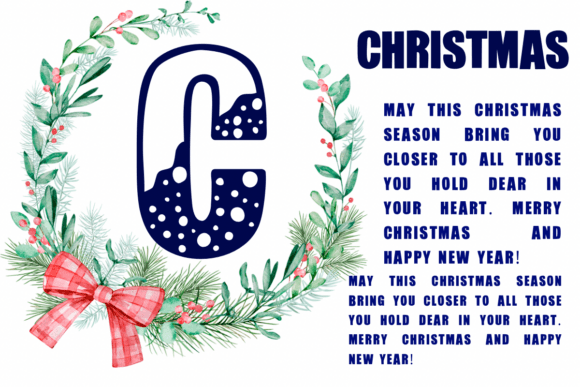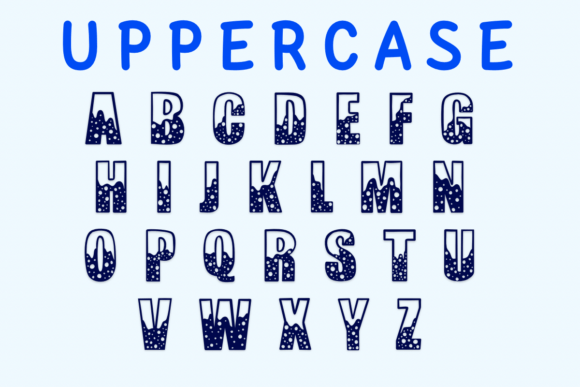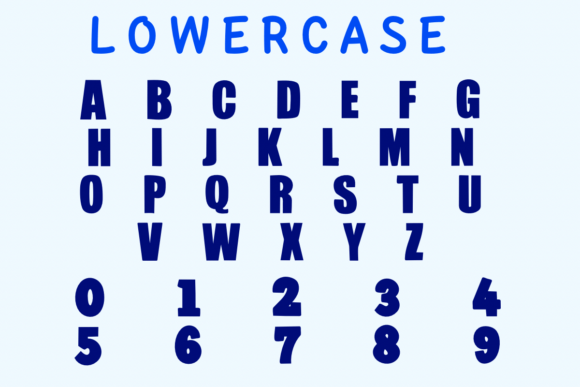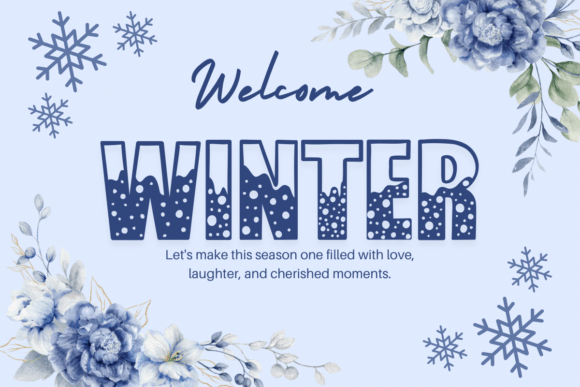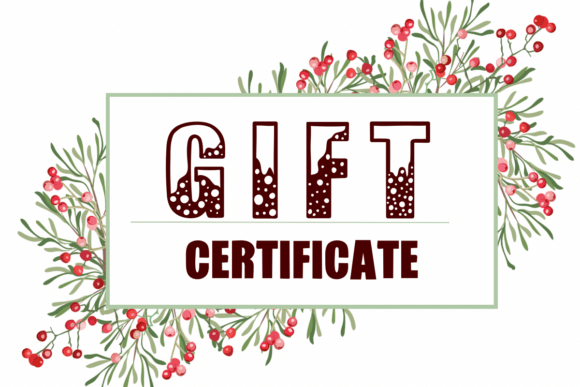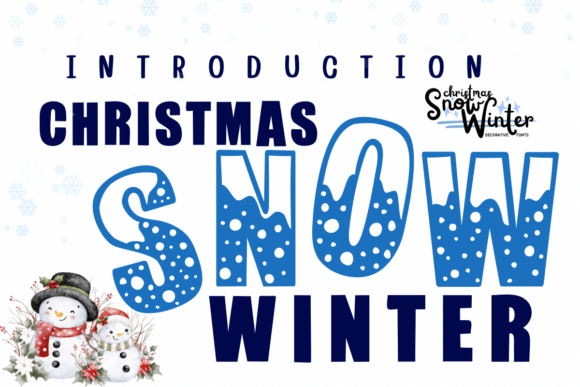
❄️ Christmas Snow Winter Font: Add a Festive Touch to Your Designs ❄️
As the holiday season approaches, designers and crafters are on the lookout for the perfect elements to add a touch of festive magic to their projects. If you’re searching for a font that embodies the spirit of Christmas and winter, look no further than the ❄️ Christmas Snow Winter Font. This decorative font is specifically designed to capture the essence of the holiday season, making it an ideal choice for a wide range of creative projects.
What is Christmas Snow Winter Font?
The ❄️ Christmas Snow Winter Font is a unique and festive decorative font that brings the joy and wonder of the holiday season to your designs. With its bold shapes, snowy textures, and playful winter vibes, this font is sure to add a cheerful touch to any project. Whether you’re creating Christmas cards, holiday invitations, party decorations, posters, social media posts, gift tags, crafts, or seasonal branding, this font is the perfect choice.
Key Features of Christmas Snow Winter Font
- Festive Design: The font features a fun snow-dipped style that instantly adds a cozy, joyful feel to your designs.
- Bold Shapes: The bold shapes of the font make it perfect for creating eye-catching designs that stand out.
- Snowy Textures: The snowy textures give the font a unique and festive look that’s perfect for the holiday season.
- Playful Winter Vibes: The font captures the playful and fun spirit of winter, making it ideal for designs that require a lighthearted touch.
Uses for Christmas Snow Winter Font
The ❄️ Christmas Snow Winter Font is incredibly versatile and can be used for a wide range of creative projects, including:
- Christmas Cards: Add a festive touch to your holiday cards with this beautiful font.
- Holiday Invitations: Create eye-catching invitations for your holiday parties and events.
- Party Decorations: Use the font to create festive decorations for your holiday parties.
- Posters: Create eye-catching posters for your holiday events and promotions.
- Social Media Posts: Add a festive touch to your social media posts and stories.
- Gift Tags: Create beautiful gift tags with a personal touch.
- Crafts: Use the font to add a festive touch to your DIY crafts.
- Seasonal Branding: Use the font to create festive branding for your business during the holiday season.
Why Choose Christmas Snow Winter Font?
There are many reasons why the ❄️ Christmas Snow Winter Font is the perfect choice for your holiday designs. Here are a few:
- Unique Design: The font has a unique and festive design that’s sure to stand out.
- Versatile: The font can be used for a wide range of creative projects.
- Festive Spirit: The font captures the festive spirit of the holiday season, making it perfect for designs that require a cheerful touch.
Tips for Using Christmas Snow Winter Font
Here are a few tips for using the ❄️ Christmas Snow Winter Font:
- Use with Images: Use the font with images of snowflakes, pinecones, and other winter elements to create a cohesive design.
- Add Texture: Add texture to your design by using the font with textured backgrounds or overlays.
- Keep it Simple: Keep your design simple and clean to ensure that the font is the focal point.
The ❄️ Christmas Snow Winter Font is a beautiful and festive decorative font that’s perfect for adding a touch of holiday magic to your designs. With its bold shapes, snowy textures, and playful winter vibes, this font is sure to capture the spirit of the holiday season. Whether you’re a designer or crafter, this font is a must-have for your holiday projects. So why wait? Download the ❄️ Christmas Snow Winter Font today and start creating festive designs that sparkle with holiday cheer!